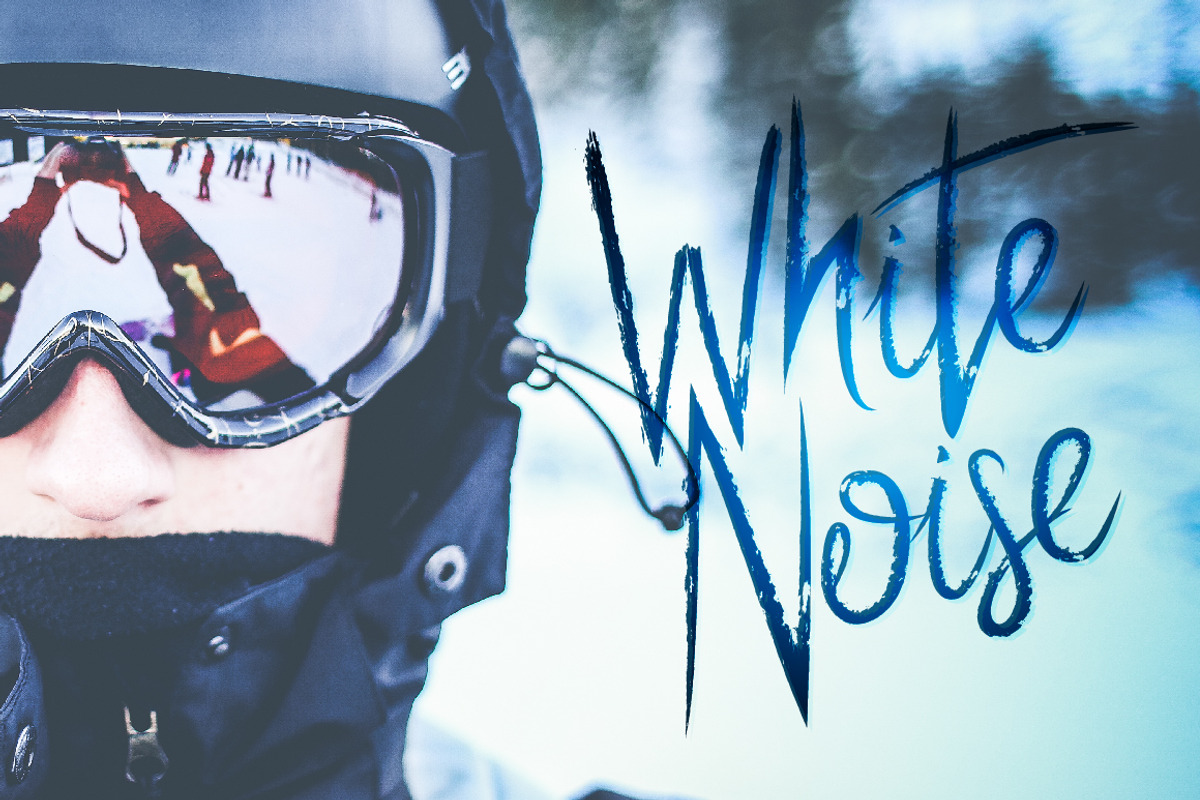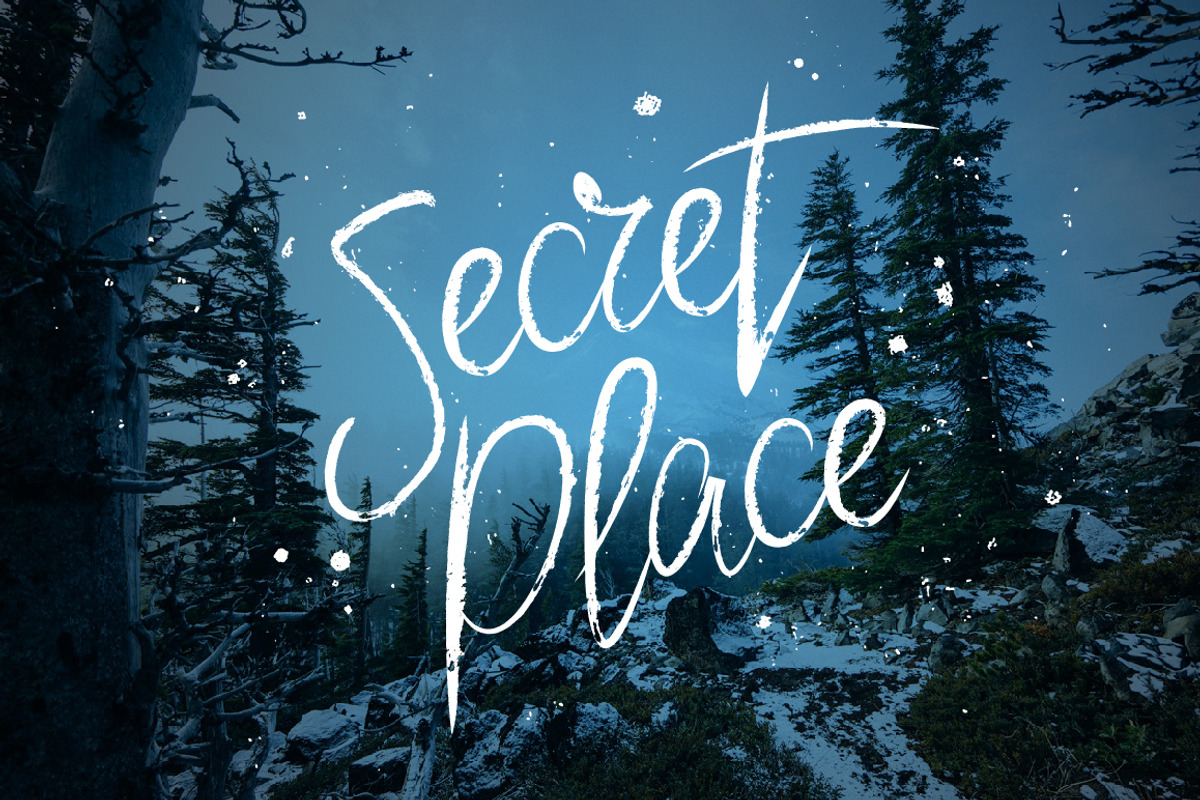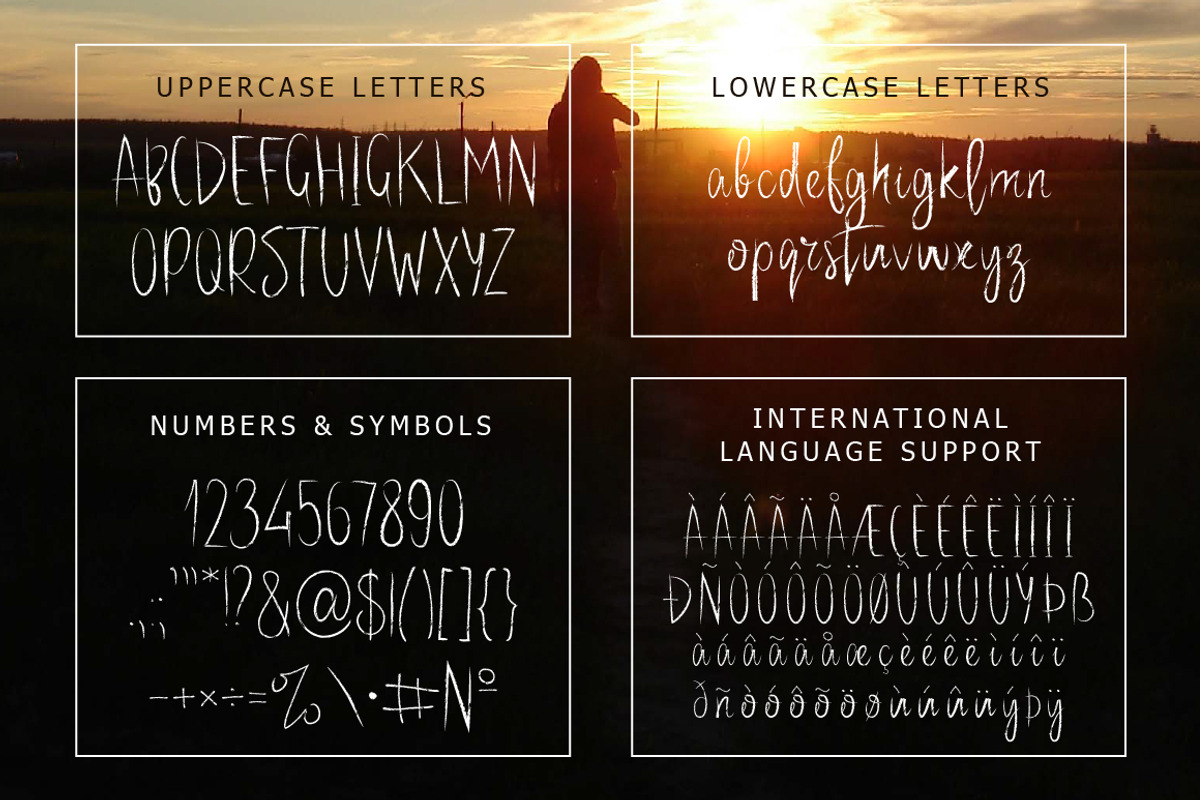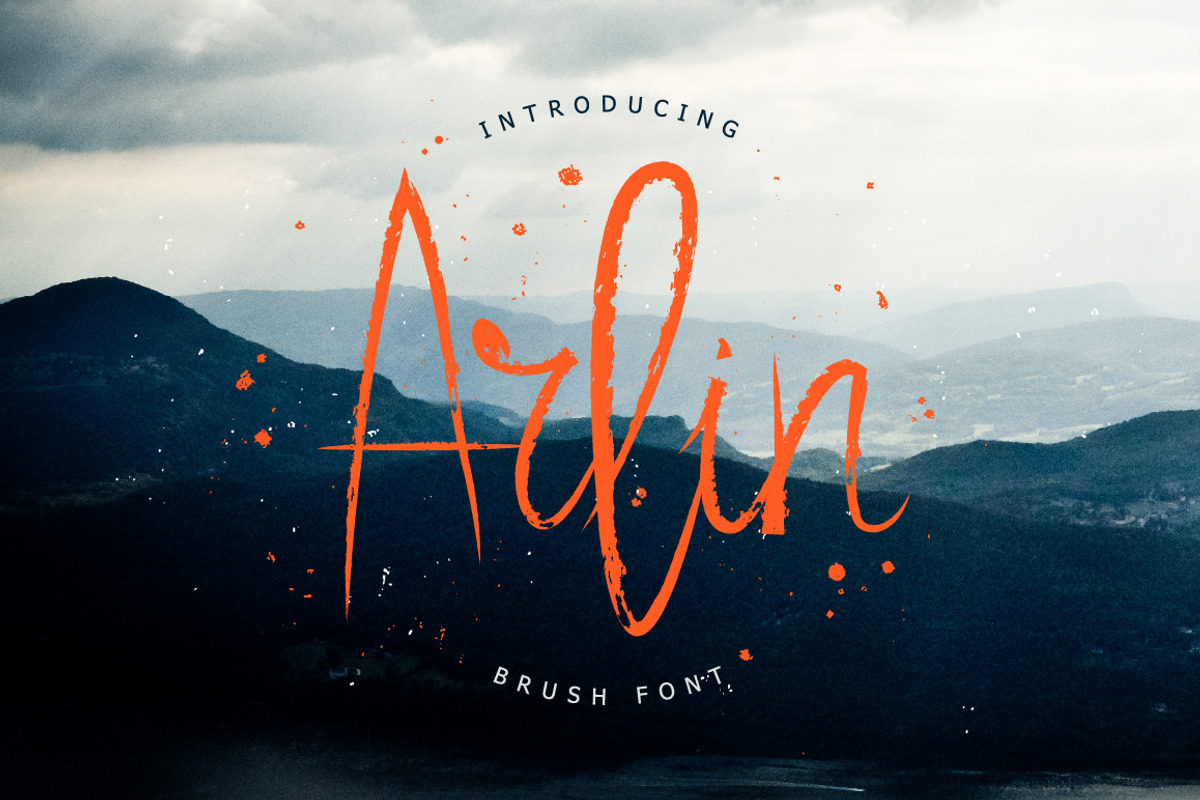
Arlin Brush Font
Arlin Brush Font by chekart is a font selected for branding, posters, packaging, typography.
- Comes with uppercase and lowercase characters, large set of punctuation glyphs, numerals, and supports international language.
Why Arlin Brush Font is worth a look
Arlin Brush Font by chekart fits naturally into Branding, posters, packaging, typography.